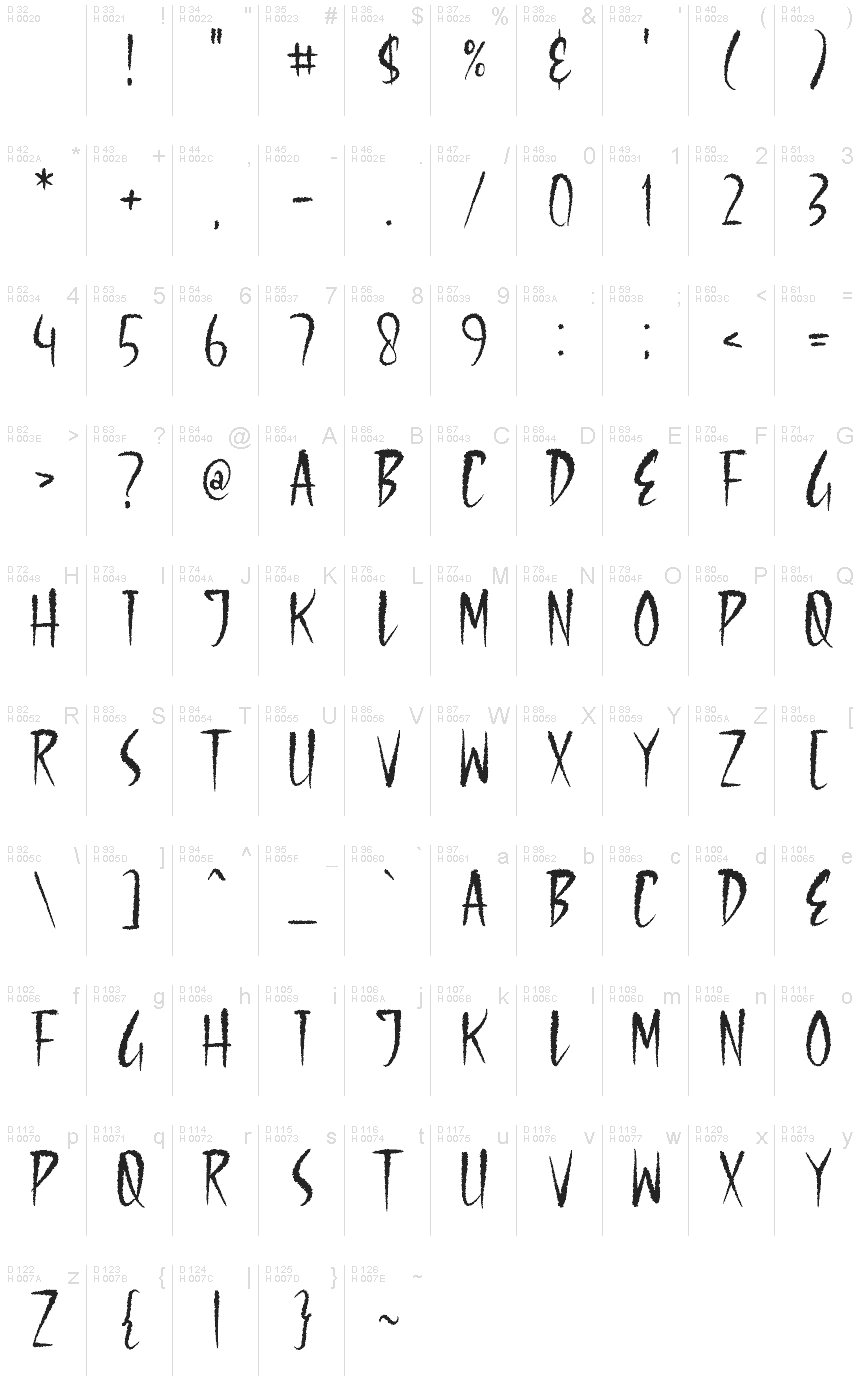
Darkside Shadow
Darkside Shadow font by Perspective Studio - Letterena.com is scary, condensed, and grunge-inspired. Organic design features appear on the fonts’ letters, slightly jagged in shape and consisting of thin wispy lines. The overall atmosphere is eerie with a distressed effect that looks horror-themed.